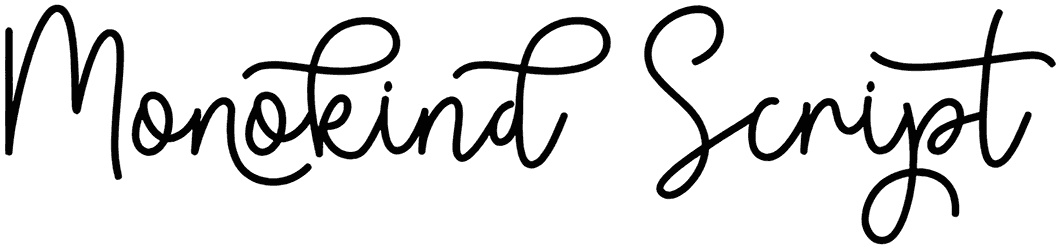
Monokind Script Font
Monokind Script letters perfectly combine elegance and style, giving you a flirtatious and powerful personality. This handwritten font is inspired by the latest trends and can be combined with other members of the RB library or alone to bring you a unique design without numbers.
So if you’re looking for a valuable digital asset to take your posters, invitations, books, and wedding cards to the next level, Monokind Script is the place to go.